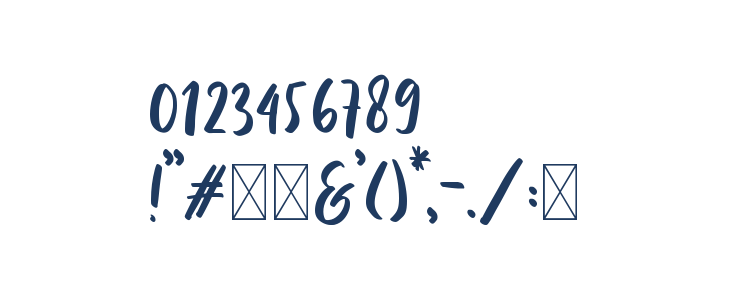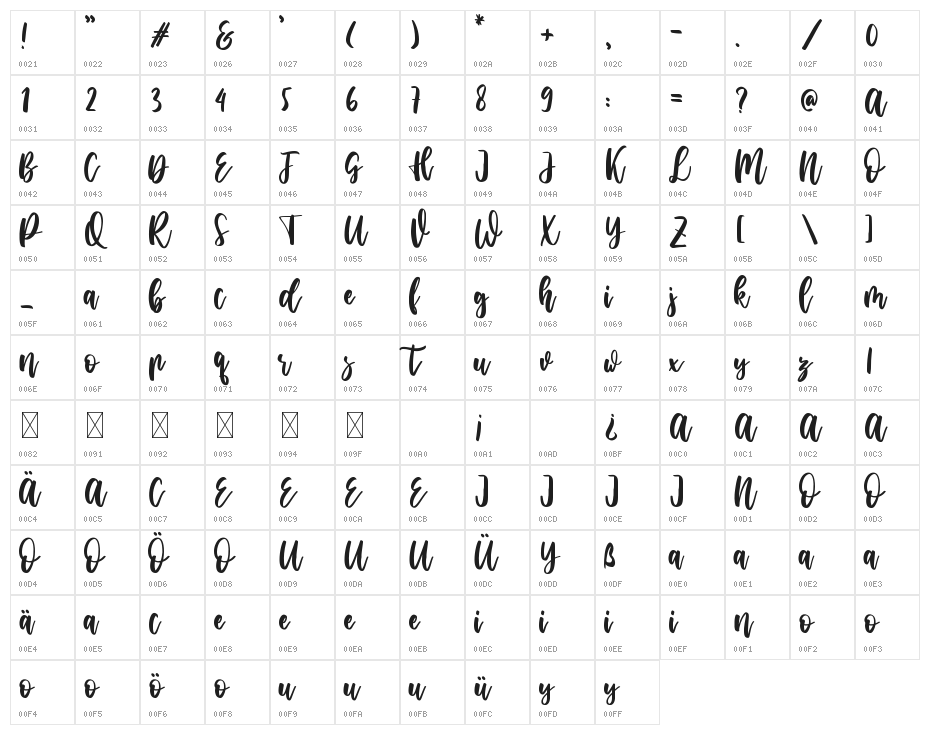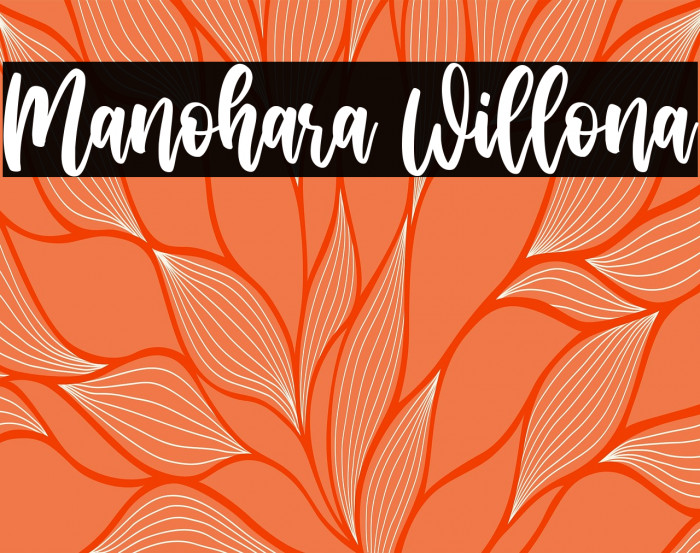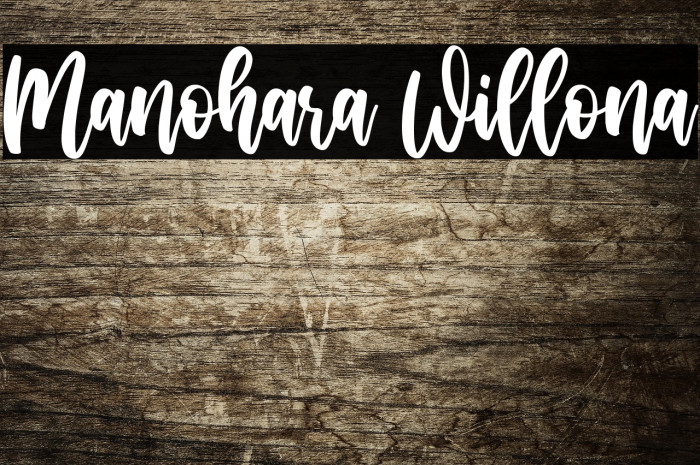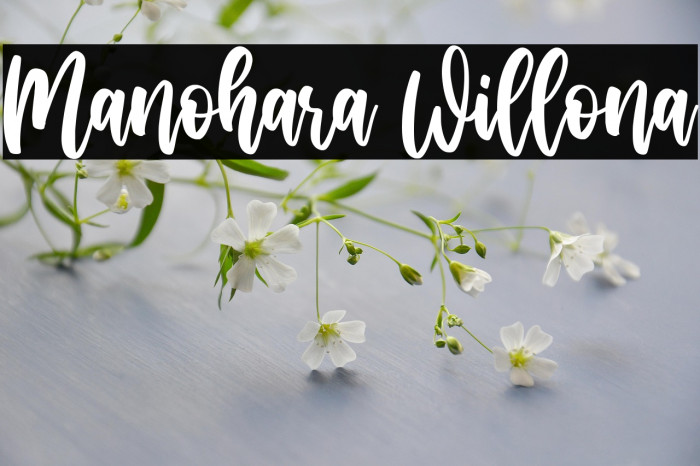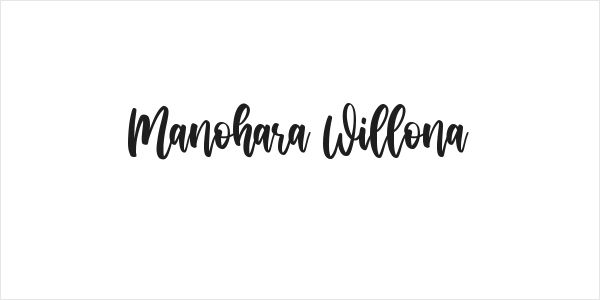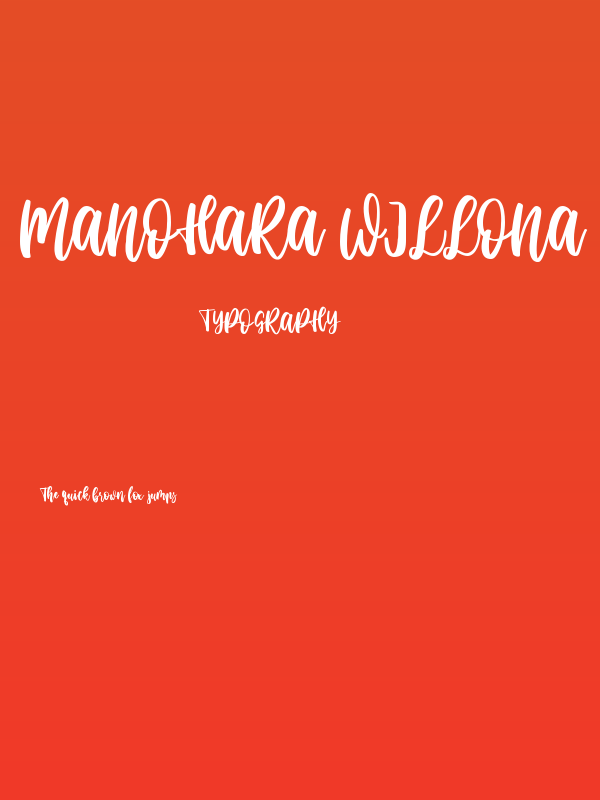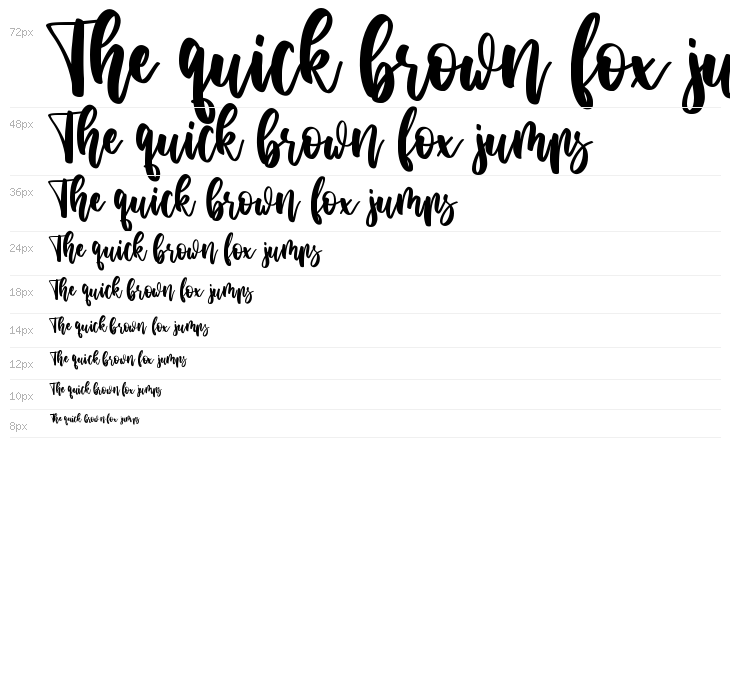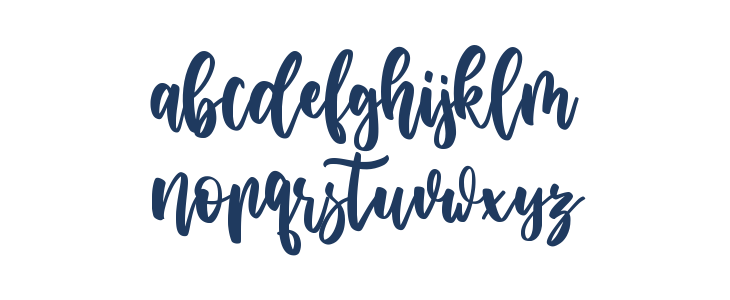
Manohara Willona Font
Manohara Willona Description
This font features a bold and expressive handwritten style, characterized by its flowing, cursive letters that convey a sense of elegance and creativity. The uppercase and lowercase letters are designed with a consistent stroke width, giving the font a harmonious appearance. The numbers and special characters maintain the same artistic flair, making them suitable for a variety of design applications. The overall look is both playful and sophisticated, making it ideal for projects that require a personal touch.